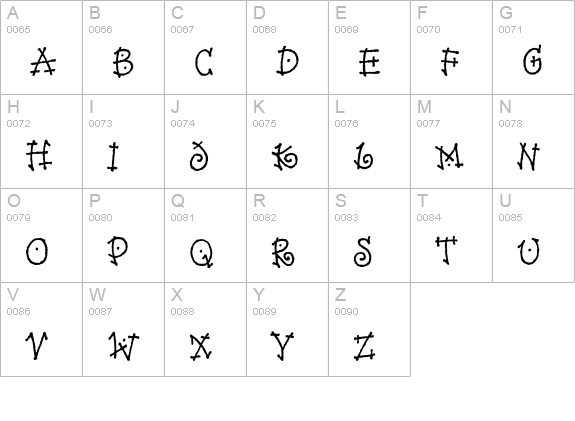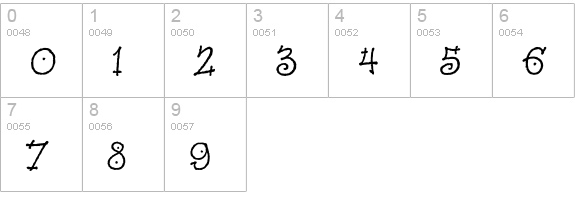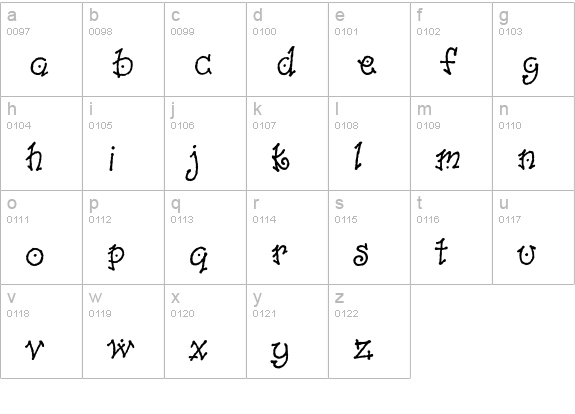
Dancin Std Font Details
Dancin Std font is a mesmerizing and captivating typeface that will add a touch of elegance and sophistication to your designs. Its graceful curves and beautifully balanced letterforms make it perfect for a wide range of creative projects, from logo designs to wedding invitations and everything in between. This font exudes a sense of fluidity and movement, with each letter seeming to dance on the page. Its unique and intricate design will instantly grab attention and make your text stand out. One of the best things about Dancin Std font is that it is freely available to download at FontsMarket.com. This means that you can easily access this stunning typeface without any cost. Its availability for free makes it an excellent choice for designers, students, and anyone else looking to enhance their projects with a touch of elegance. Whether you're working on a personal project or a professional design, Dancin Std font will elevate your work to new heights. Its versatility and timeless appeal make it a must-have for any font collection. Don't miss out on the opportunity to download this stunning typeface for free at FontsMarket.com and bring your designs to life with the beauty and grace of Dancin Std font.